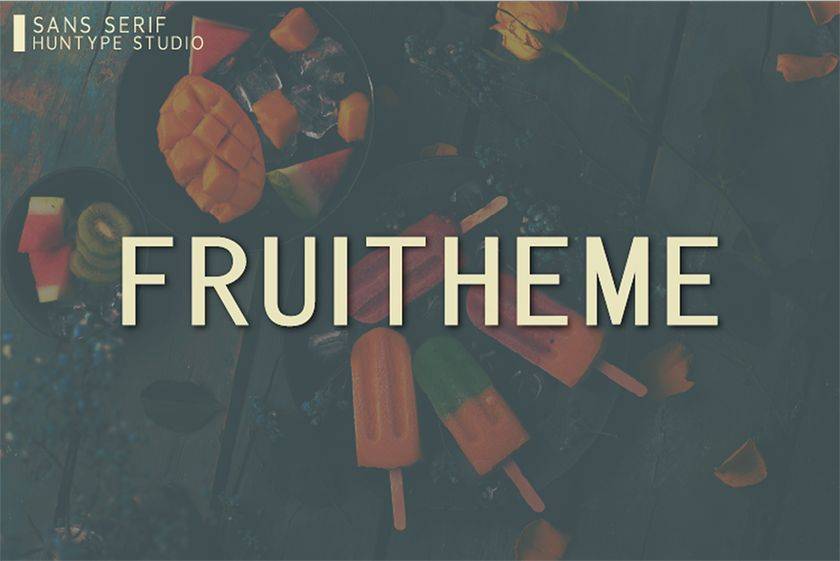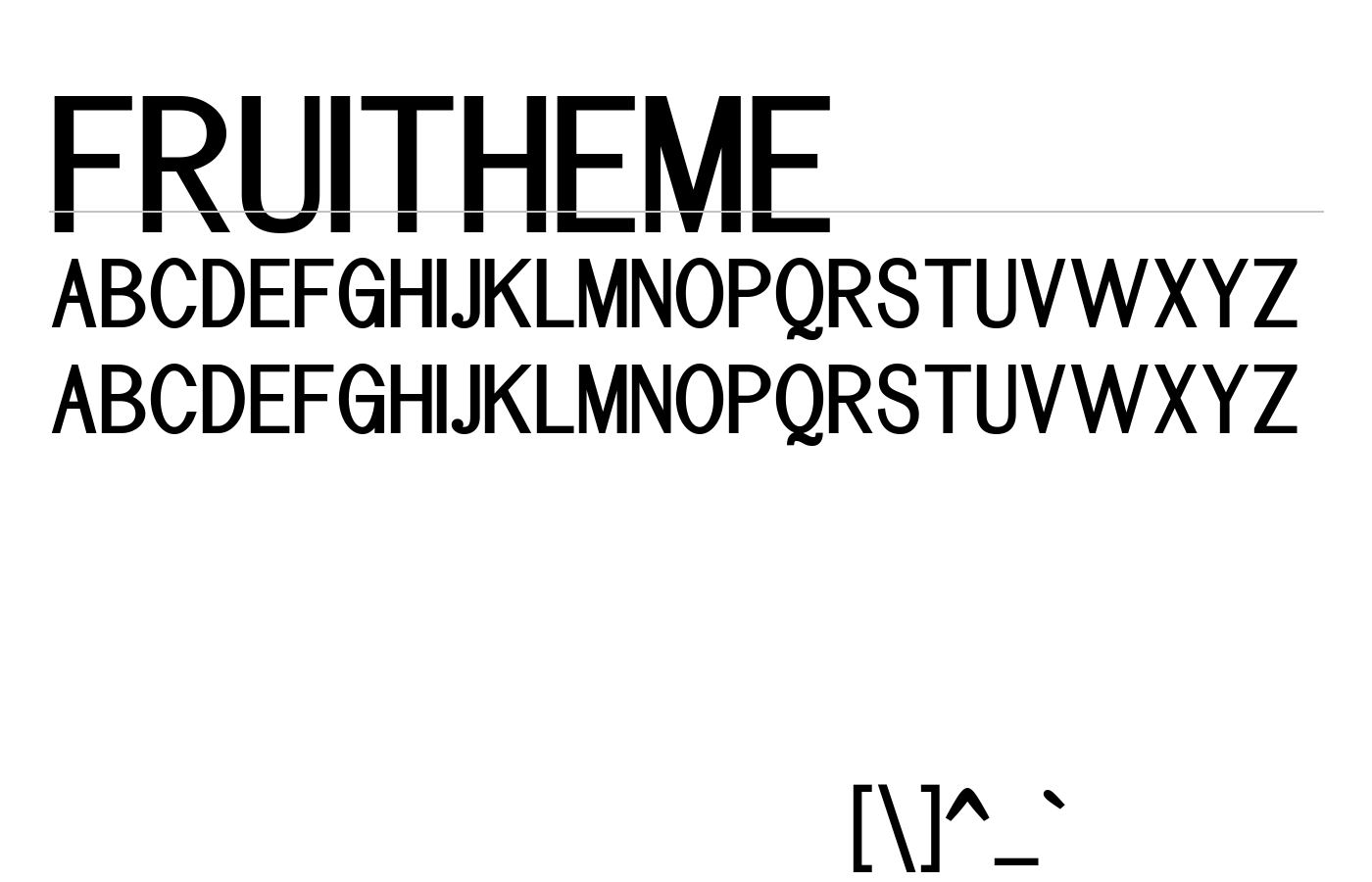
Fruitheme is a clean and modern sans-serif font characterized by its narrow, tall letterforms and consistent stroke weight, offering a sleek and streamlined appearance. Its high x-height and tight spacing make it highly readable and stylish, perfect for contemporary branding, editorial headlines, and digital interfaces seeking a modern yet approachable feel. This font works well when you want to convey professionalism with a fresh, elegant edge.
Fruitheme Font
About Fruitheme Font